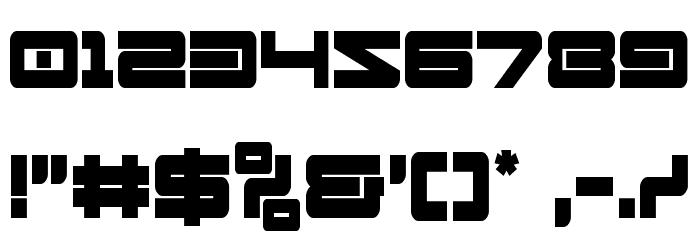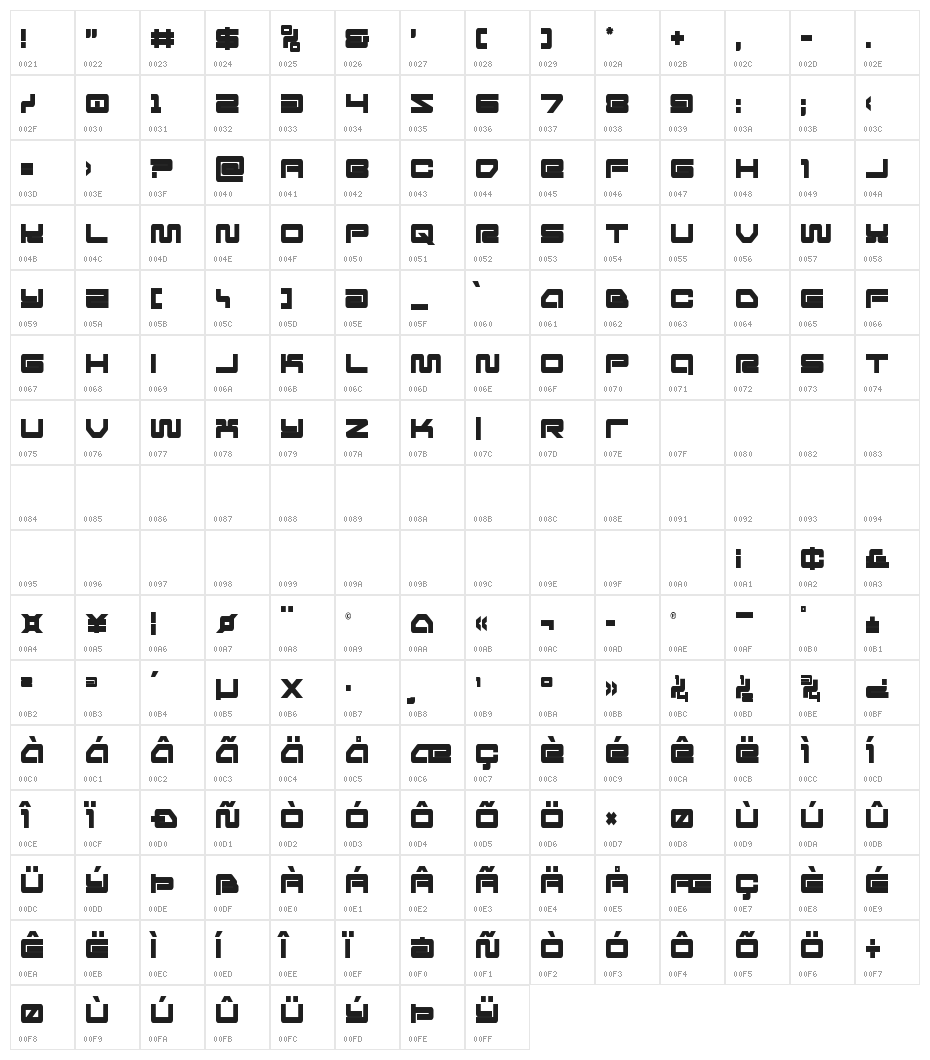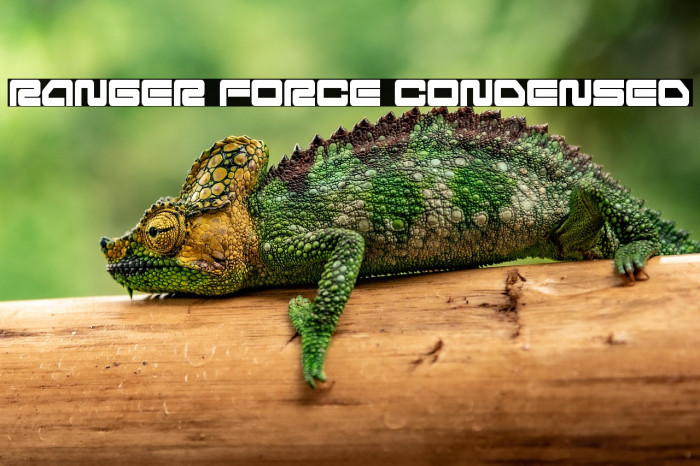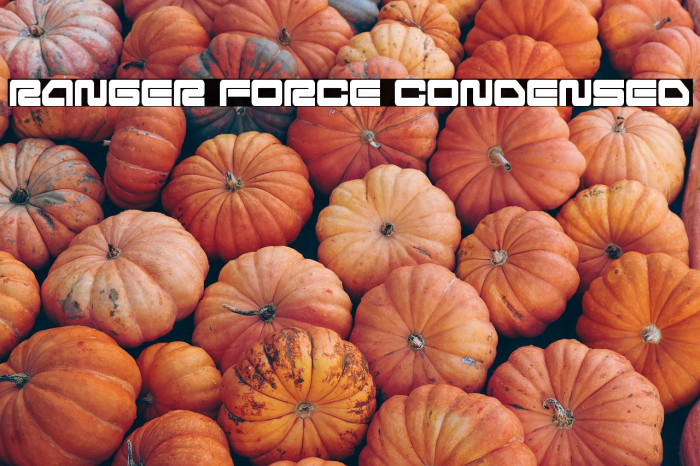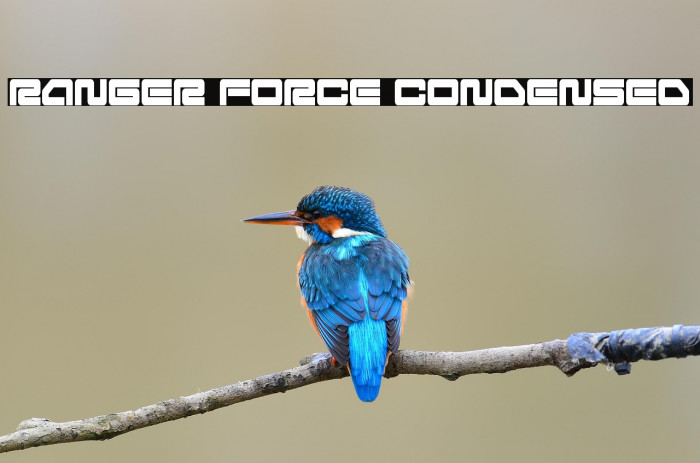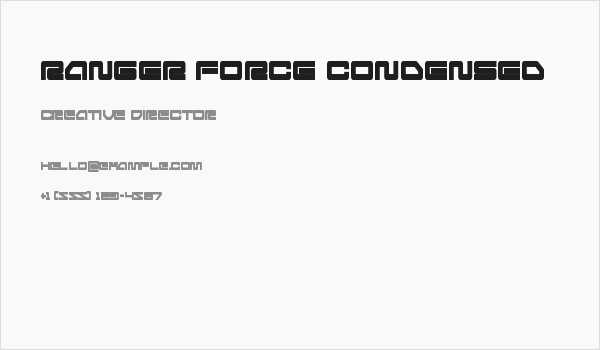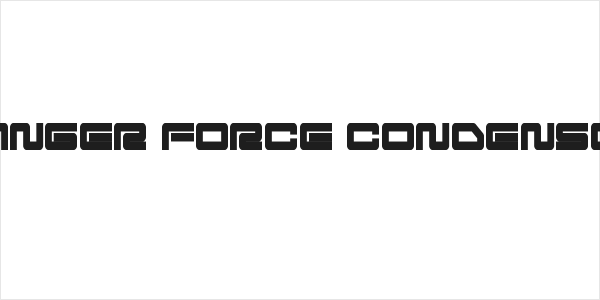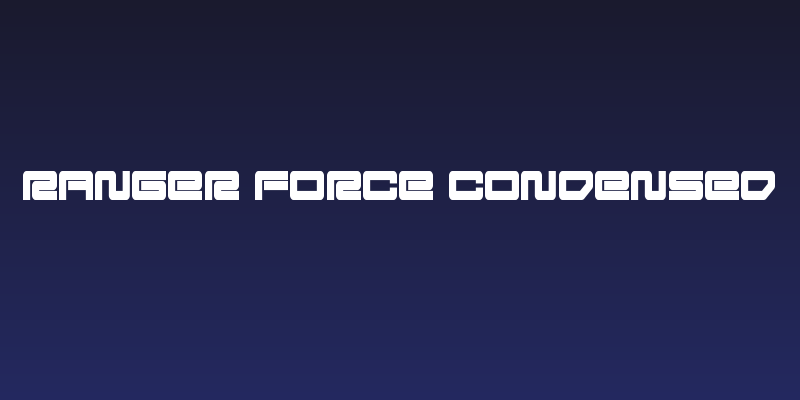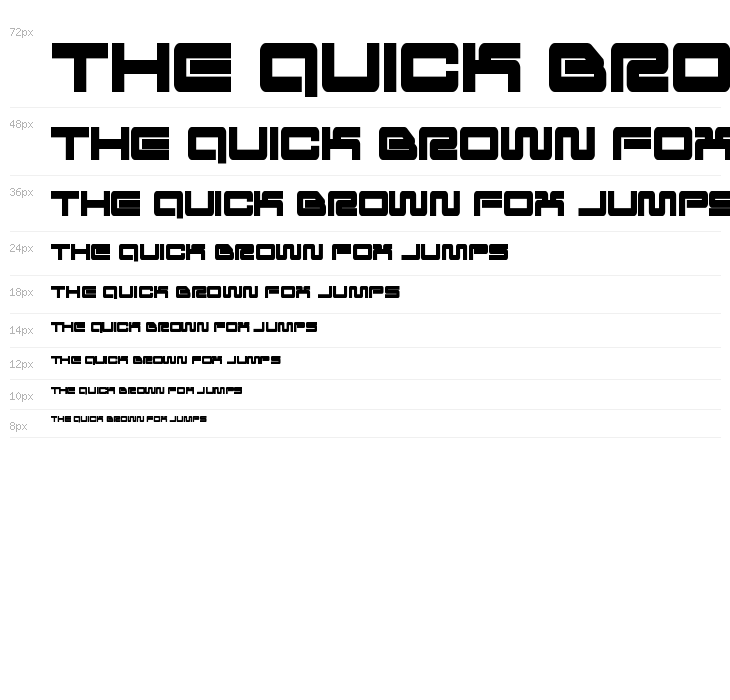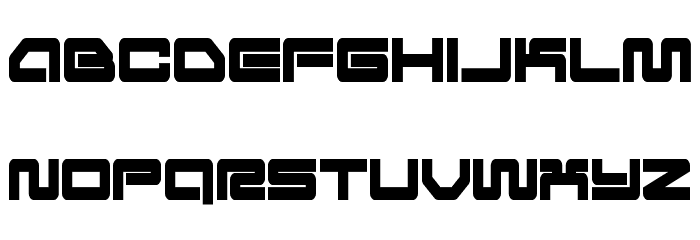
Ranger Force Condensed Font
Ranger Force Condensed Description
This font features a bold, geometric design with a futuristic and industrial feel. The characters are constructed with thick, block-like shapes that give a sense of strength and stability. The angular forms and sharp edges contribute to its modern aesthetic, making it stand out in any design. The uppercase and lowercase letters maintain a consistent style, while the numerals and special characters complement the overall look. Its condensed width allows for efficient use of space, making it suitable for impactful headlines and titles.
| Proposed Projects | Ideal for sci-fi themed projects, technology branding, video game titles, and posters. |